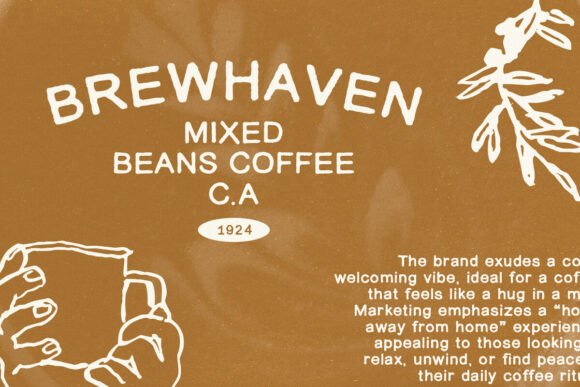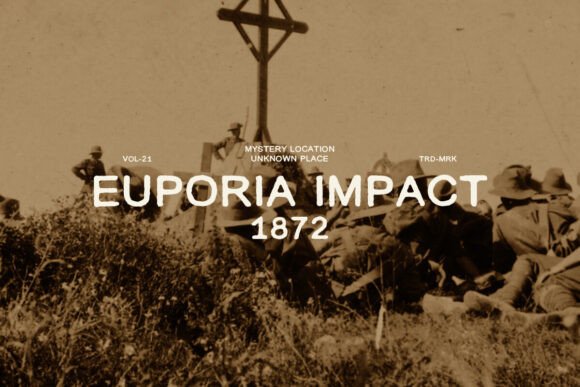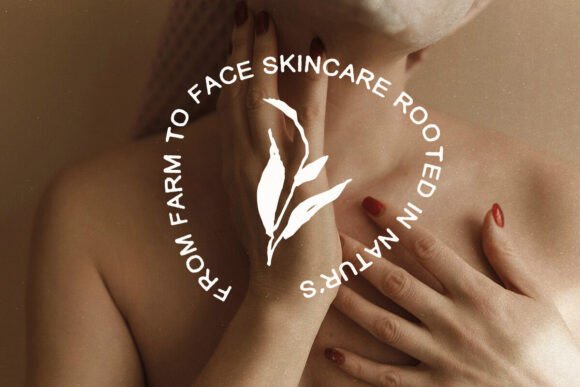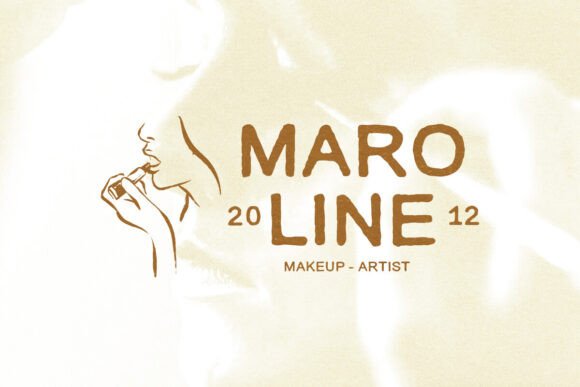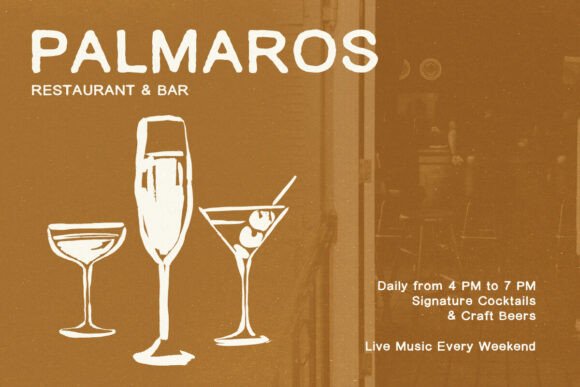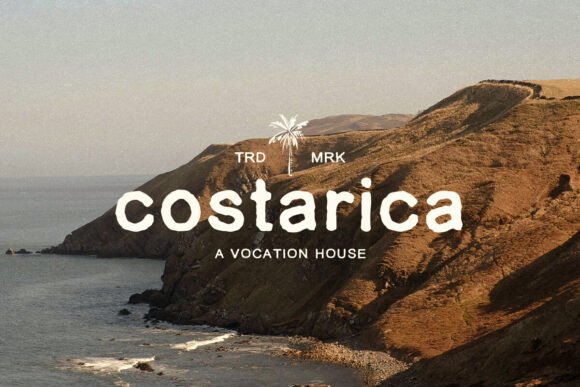
Introduction to Pinefolk Font
As a designer, have you ever found yourself staring at a blank canvas, yearning for the perfect font to bring your creative project to life? Perhaps you’ve spent hours scrolling through design resources, searching for that one elusive font that captures the essence of your idea. For me, that moment came when I stumbled upon the Pinefolk Font – an organic handwritten font that transports me to the serenity of a forest glade.
With its beautifully textured shapes and naturally rustic charm, Pinefolk Font is a high-quality design resource that instantly elevates any project. Its organic texture makes it perfect for branding, logos, packaging, and more, especially when paired with a transparent background to emphasize its earthy, nature-inspired theme.
What I love most about Pinefolk Font is its ability to bring warmth and authenticity to any design. It’s a free download that’s worth its weight in gold, offering a level of creative freedom that’s hard to find elsewhere. Whether you’re working on a logo, a brochure, or a website, Pinefolk Font is an invaluable resource that will breathe new life into your project.
Pinefolk Font Key Features
- High-quality, hand-drawn design resource ideal for creative projects requiring a unique touch.
- Features a transparent background, making it easy to customize and integrate into various design elements.
- Unique, folk-inspired design aesthetic that adds a touch of whimsy and personality to any creative project.
- Perfect for use in graphic design, digital art, and other creative pursuits where a distinctive, hand-crafted look is desired.
Honest Review: Pinefolk Font
I recently stumbled upon the Pinefolk Font and was impressed with its unique charm. As a designer, I always appreciate high-quality design resources that can elevate my creative project.
- ✨ Unique and whimsical design style that’s perfect for creative projects.
- ✨ Transparent background option for easy layering and customization.
- ⚠️ Limited character set and glyph selection, which may not be suitable for complex text-based designs.
- ⚠️ Some users may find the font’s unique style too quirky or overwhelming for certain projects.
Overall, I’m impressed with the Pinefolk Font and would recommend it for designers looking for a high-quality, unique font to add some personality to their creative project. With its transparent background and free download option, it’s an excellent choice for designers on a budget. Just be aware of its limitations, and you’ll be all set to create some amazing designs!
The Pinefolk Font is a high-quality design resource that offers a unique and creative touch to your projects. With a transparent background, this font is perfect for designers and artists looking to add a professional touch to their work.
The Pinefolk Font is perfect for a variety of creative projects, including:
- Logo design and branding.
- Infographics and data visualizations.
- Brochures and marketing materials.